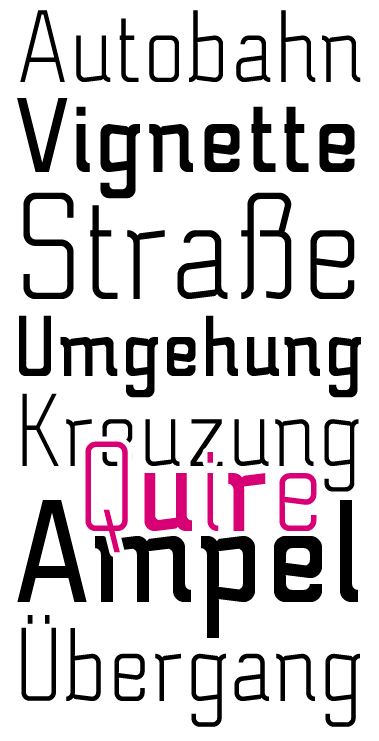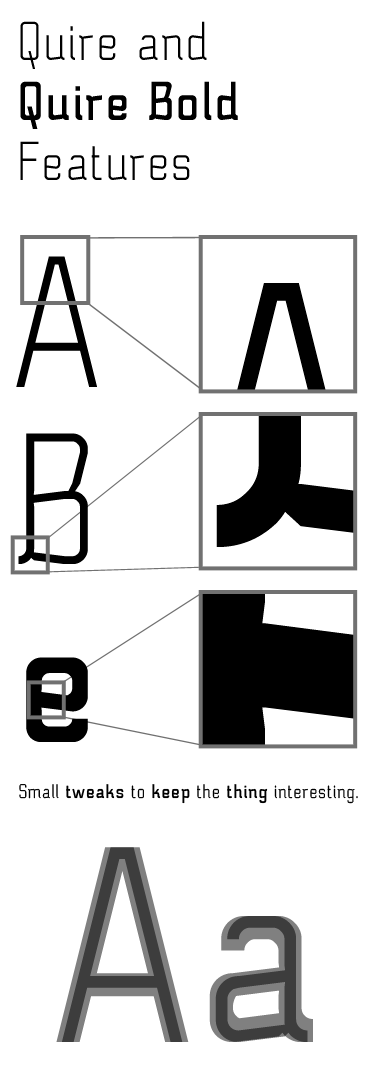
Quire Bold
Clone of Quire.
Sans Serif
At first it looks like a standard sans face - then you notice the little quirks that give this added character.
The same goes for the normal width version.
I like the way you made slight tilts for some of the strokes and ends. It gives a fun, yet stylish feel. Great work!
Congratulations on the TP; the quirkiness p2p mentions gives a distinct personality and takes this font above the mass of 'sans' typewriter-style fonts.
Thank you all very much. Here's another specimen...
OOOOh! I do luv a good tweak. :-)
You have a knack for the awesome.
Just found out that tweak doesn't exist as a noun in English. Slightly embarrased... :-)
Tweak exists as a noun - “a small adjustment”.
fantastick tweak